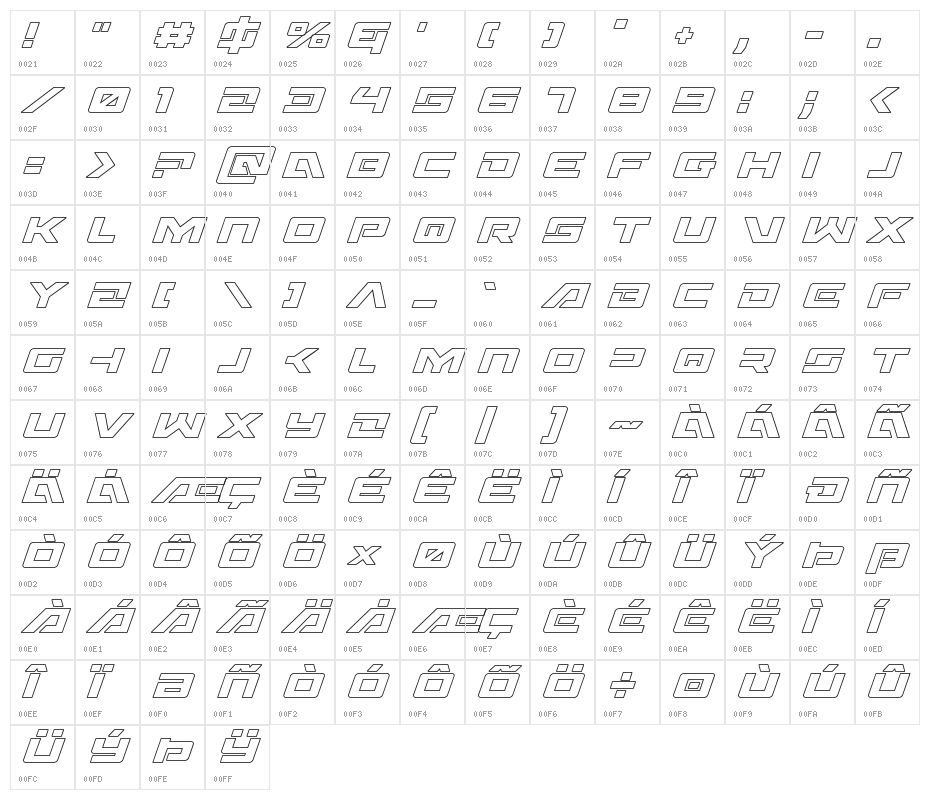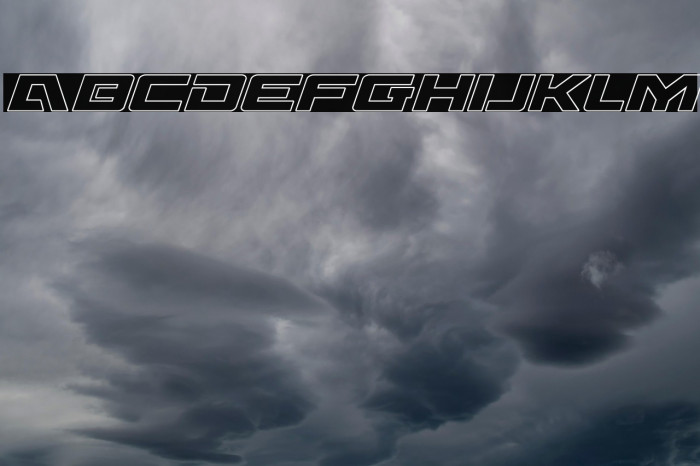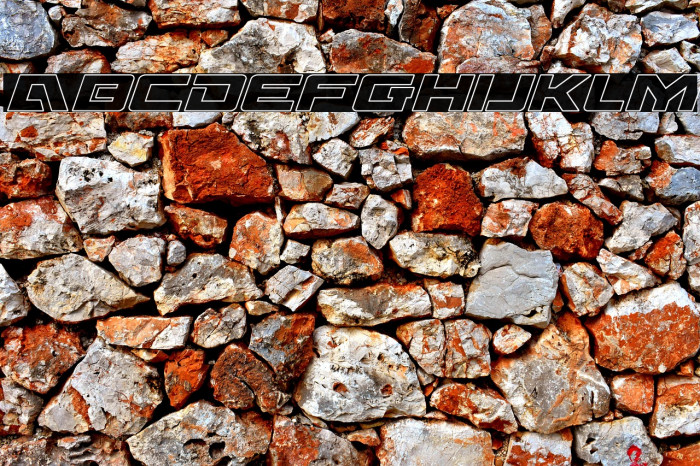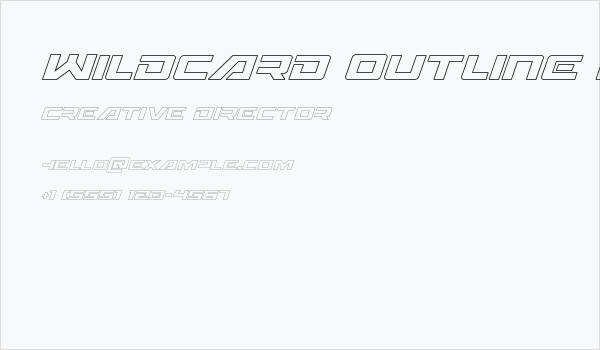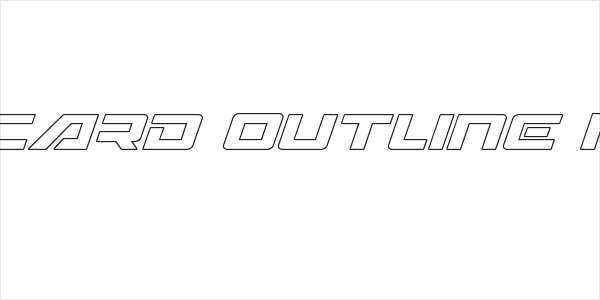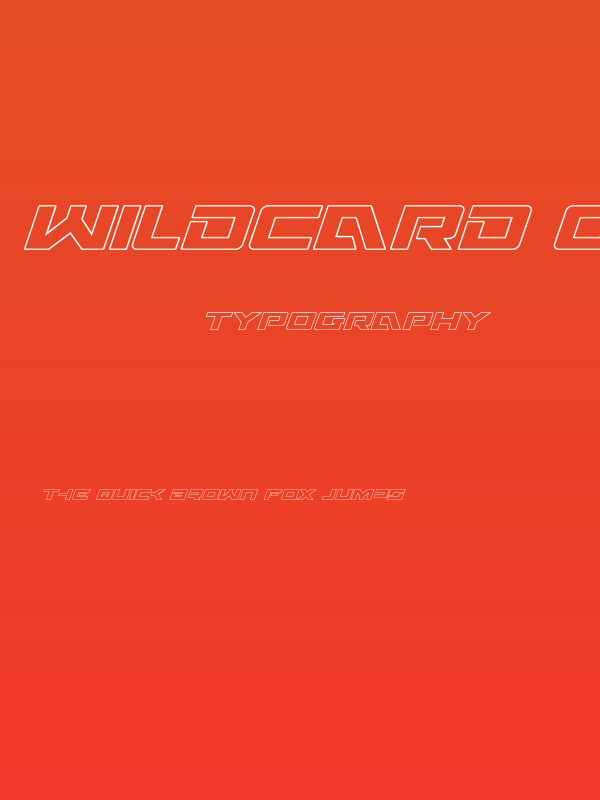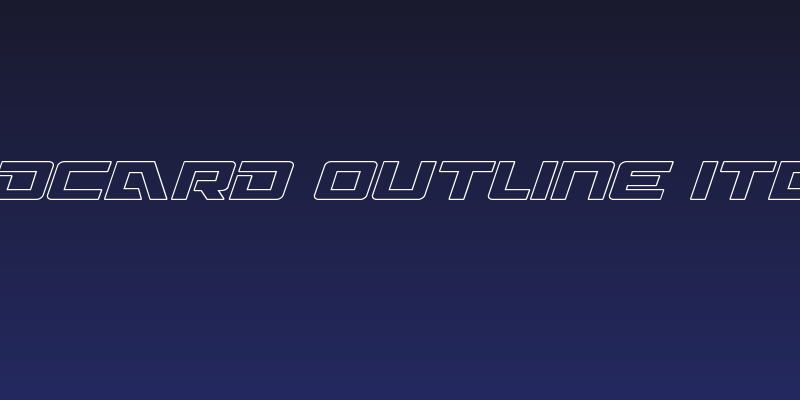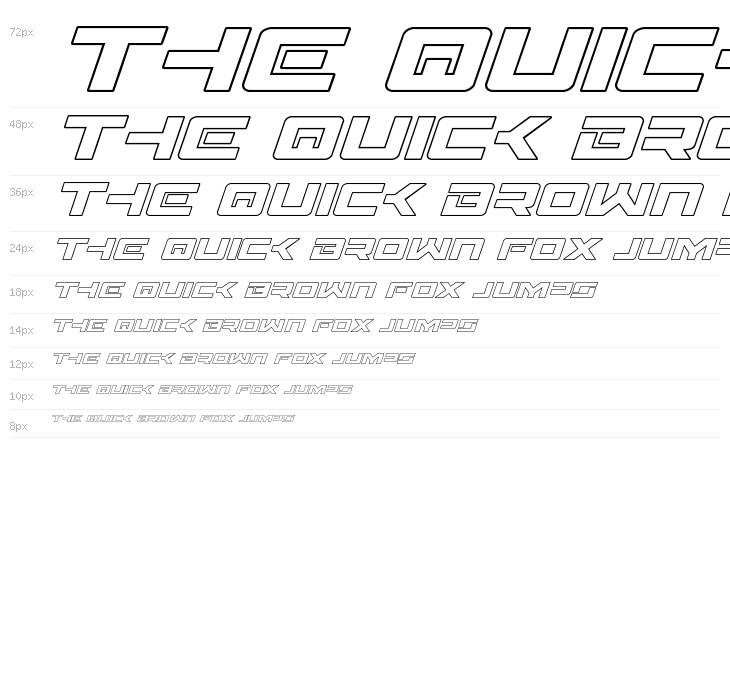
Wildcard Outline Italic Font
Wildcard Outline Italic Description
This font features a modern, geometric outline style with a distinct italic slant, giving it a dynamic and futuristic appearance. The characters are constructed with clean, angular lines and sharp edges, creating a sense of movement and speed. The uppercase and lowercase letters maintain a consistent height, while the numerals and special characters are designed to complement the overall aesthetic. The outline effect adds a layer of depth, making it suitable for eye-catching designs. Its unique style is ideal for projects that require a bold, contemporary look.
Proposed ProjectsIdeal for futuristic branding, tech-related logos, video game titles, and dynamic posters.